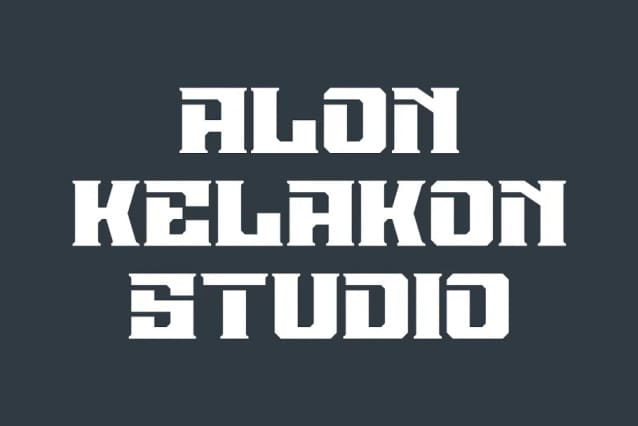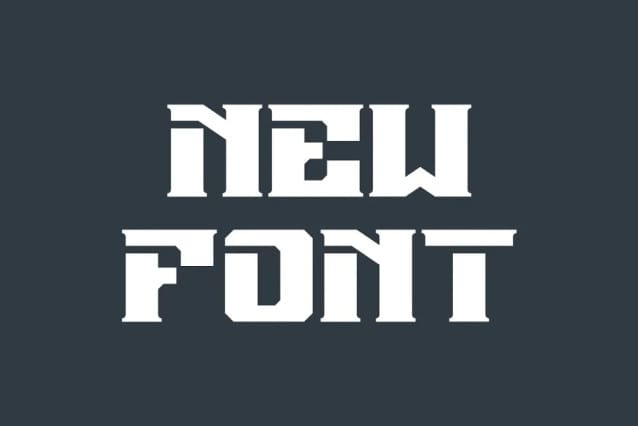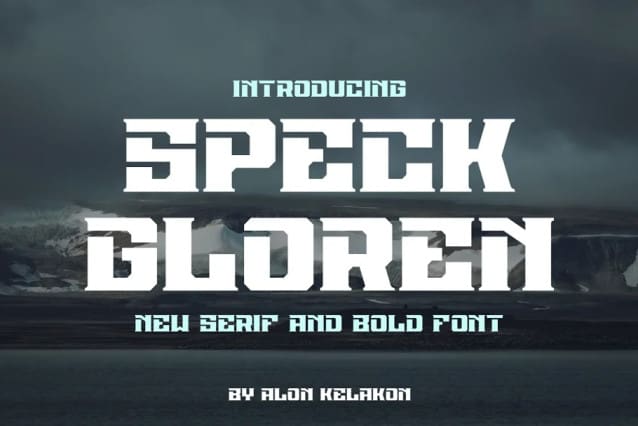
Speck Gloren Font
Speck Gloren Font, is a bold and assertive serif font. No matter the topic, this font will be an incredible asset to your fonts’ library, as it has the potential to elevate any creation.